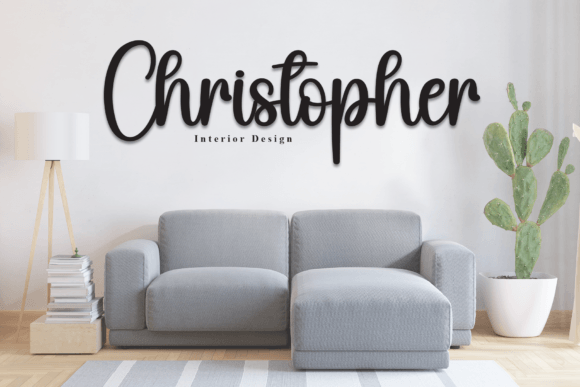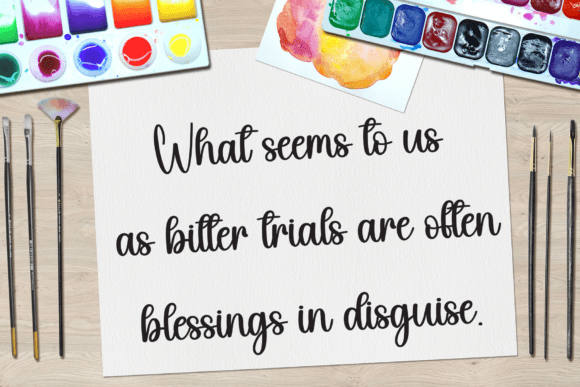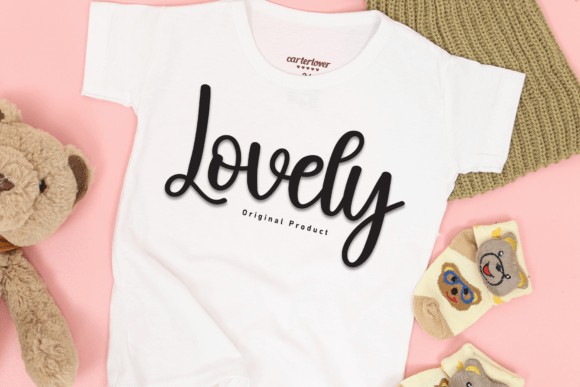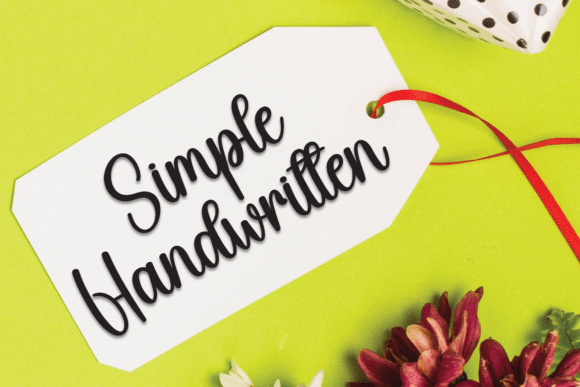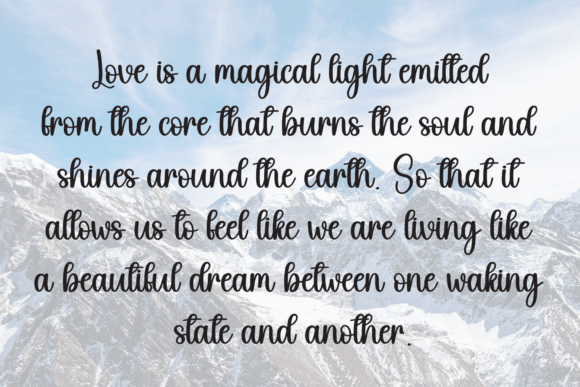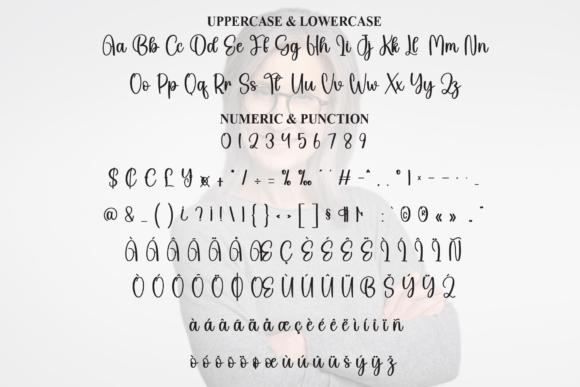
Introducing Grandma Font: The Elegant Handwritten Script Font for Your Creative Projects
Are you looking for a font that exudes elegance, charm, and a touch of sophistication? Look no further than Grandma Font, a beautiful handwritten script font that is perfect for adding a personal touch to your designs. With its fluid strokes and natural flow, Grandma Font creates a captivating and refined look that is sure to impress.
The Characteristics of Grandma Font
Grandma Font is a stylish handwritten script font that boasts a range of characteristics that make it perfect for creative projects. Some of its key features include:
- Fluid Strokes: Grandma Font features fluid strokes that give it a natural, handwritten feel. The strokes are smooth and connected, creating a sense of flow and continuity.
- Elegant Letterforms: The letterforms in Grandma Font are elegant and refined, with a subtle flair at the terminals that adds to their sophistication.
- Natural Flow: The font has a natural flow that makes it perfect for use in designs where a personal touch is desired. Whether you’re creating invitations, branding materials, or social media graphics, Grandma Font brings a sense of warmth and creativity to your designs.
Uses for Grandma Font
Grandma Font is a versatile font that can be used in a wide range of creative projects. Some of the most popular uses for the font include:
- Invitations: Grandma Font is perfect for creating beautiful, elegant invitations for weddings, parties, and other special occasions.
- Branding: The font’s sophisticated look makes it ideal for use in branding materials such as logos, business cards, and letterheads.
- Social Media Graphics: Grandma Font can add a touch of elegance and sophistication to your social media graphics, making them stand out in a crowded feed.
- Crafting: Crafters will love using Grandma Font to add a personal touch to their projects, whether it’s a handmade card, a scrapbooking page, or a piece of home decor.
Why Choose Grandma Font?
So why choose Grandma Font for your creative projects? Here are just a few reasons:
- Unique and Eye-Catching: Grandma Font is a unique and eye-catching font that will set your designs apart from the crowd.
- Elegant and Sophisticated: The font’s elegant and sophisticated look makes it perfect for designs where a touch of refinement is desired.
- Easy to Read: Despite its elegant look, Grandma Font is easy to read, making it perfect for use in designs where text needs to be clear and legible.
- Versatile: Grandma Font can be used in a wide range of creative projects, from invitations and branding materials to social media graphics and crafting projects.
Tips for Using Grandma Font
Here are a few tips for using Grandma Font in your creative projects:
- Use it as a Headline Font: Grandma Font is perfect for use as a headline font, where its elegant and sophisticated look can really shine.
- Pair it with a Sans Serif Font: For body text, consider pairing Grandma Font with a sans serif font to create a nice contrast and add visual interest to your design.
- Experiment with Colors: Grandma Font looks great in a range of colors, from classic black and white to bold and bright hues. Experiment with different colors to find the one that works best for your design.
Overall, Grandma Font is a beautiful and versatile font that is perfect for adding a touch of elegance and sophistication to your creative projects. With its fluid strokes, elegant letterforms, and natural flow, it’s sure to become a favorite in your design toolkit.